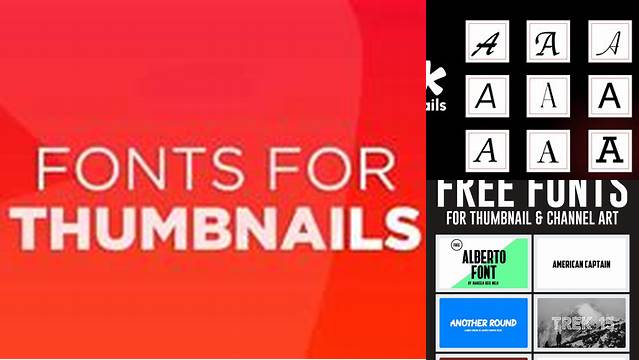
Best YouTube Thumbnail Fonts: Ultimate Guide For Clickworthy Videos
Choosing the right thumbnail fonts is crucial for grabbing viewers' attention on YouTube. Think of your thumbnail as the storefront of your video – it's the first thing people see, and it needs to make a strong impression. The font you use plays a massive role in conveying your video's message and attracting clicks. Let's dive into everything you need to know about selecting the perfect fonts for your YouTube thumbnails.
Why Font Choice Matters for YouTube Thumbnails
Your thumbnail is a silent salesperson, working tirelessly to convince viewers to click on your video. The font you choose is a key element in this sales pitch. Here’s why:
- Readability: First and foremost, your font needs to be readable. If people can’t easily decipher the text on your thumbnail, they’re going to scroll right past. Choose fonts that are clear, crisp, and easy to read at a glance, even on small screens. Think about it – most people watch YouTube on their phones, so your thumbnail needs to be legible on a tiny screen.
- Brand Consistency: Your thumbnails are an extension of your brand. Using consistent fonts across all your videos helps viewers instantly recognize your content. This is super important for building brand recognition and loyalty. Imagine your audience scrolling through YouTube – a consistent font style helps them spot your videos in a sea of content.
- Emotional Impact: Fonts evoke emotions. A bold, sans-serif font might convey strength and excitement, while a softer, script font might suggest elegance and creativity. The font you choose should align with the tone and subject matter of your video. For example, a gaming video might benefit from a bold, attention-grabbing font, whereas a tutorial on calligraphy might use a more elegant script.
- Standing Out: YouTube is a crowded platform, so your thumbnail needs to stand out. A unique and eye-catching font can help your video grab attention and entice viewers to click. But remember, it's a balance – you want to stand out without sacrificing readability or brand consistency.
When selecting YouTube thumbnail fonts, always consider these factors. Your font choice is more than just aesthetics; it's about making your video discoverable and appealing.
Top Font Categories for YouTube Thumbnails
Navigating the world of fonts can be overwhelming, but understanding the main categories can help you narrow down your choices. Here are some top font categories that work well for YouTube thumbnails:
1. Sans-Serif Fonts
Sans-serif fonts are characterized by their clean, modern appearance. They lack the small decorative strokes (serifs) found in other font styles, making them highly readable, especially in digital formats. Here’s why sans-serif fonts are a great choice for YouTube thumbnails:
- Readability: The simplicity of sans-serif fonts makes them incredibly easy to read, even at small sizes. This is crucial for thumbnails viewed on mobile devices.
- Versatility: Sans-serif fonts work well for a wide range of video topics, from tutorials and vlogs to gaming and tech reviews. Their clean aesthetic makes them a safe and reliable choice.
- Modern Look: Sans-serif fonts have a contemporary feel, which can help your thumbnails look fresh and up-to-date.
Some popular sans-serif fonts for thumbnails include:
- Arial: A classic, widely available font that's highly readable.
- Helvetica: Another classic choice known for its clean and neutral appearance.
- Roboto: A modern sans-serif font that's part of the Android operating system, making it a great choice for tech-related videos.
- Montserrat: A geometric sans-serif font that's both stylish and readable.
- Open Sans: A humanist sans-serif font designed for readability on screens.
2. Serif Fonts
Serif fonts are characterized by the small decorative strokes (serifs) at the ends of letters. While they might be more commonly associated with print, certain serif fonts can work well for YouTube thumbnails, particularly for videos with a classic or elegant theme. Here’s what you need to consider when using serif fonts:
- Elegance and Tradition: Serif fonts can add a touch of sophistication and tradition to your thumbnails. They're great for videos on topics like history, literature, or arts and crafts.
- Readability at Larger Sizes: Serif fonts tend to be more readable at larger sizes, so make sure your text is prominent enough in the thumbnail.
- Careful Selection: Not all serif fonts are created equal. Avoid overly ornate or thin serif fonts that might be difficult to read on a small screen.
Some serif fonts that work well for thumbnails include:
- Georgia: A highly readable serif font that looks great on screens.
- Times New Roman: A classic serif font that's widely recognized and easy to read.
- Playfair Display: A stylish serif font that can add a touch of elegance to your thumbnails.
So, guys, go ahead and make those killer thumbnails! Your font choice can be the difference between a scroll-past and a click, so choose wisely and watch your views climb!